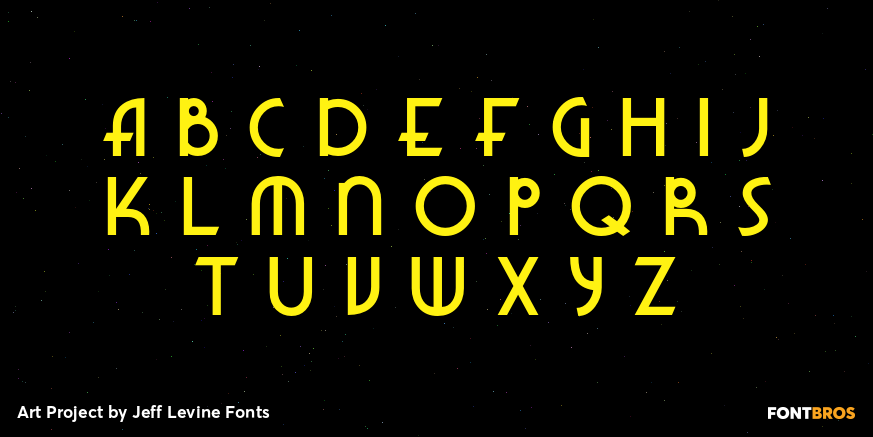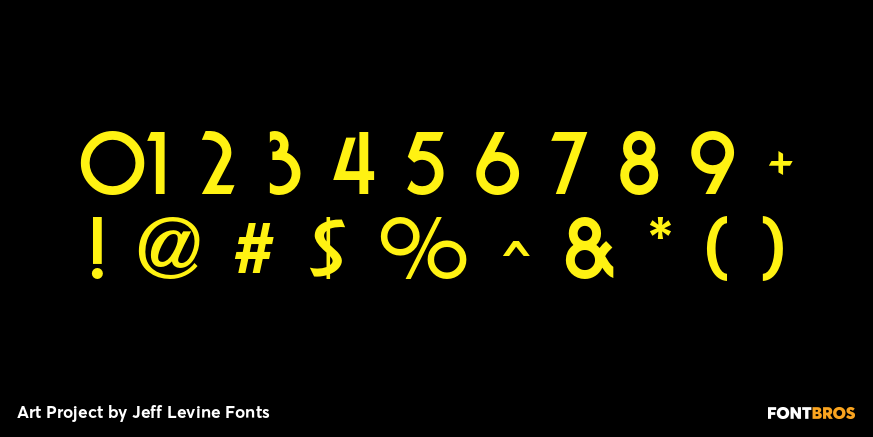
Art Project
A 1930s WPA (Works Projects Administration) poster advertising a play entitled 'Abraham Lincoln, The Great Commoner” had the play's name done in a hand-lettered Art Deco sans.
According to Wikipedia, 'the Works Progress Administration (renamed in 1939 as the Work Projects Administration; WPA) was the largest and most ambitious American New Deal agency, employing millions of unemployed people (mostly unskilled men) to carry out public works projects, including the construction of public buildings and roads. In a much smaller but more famous project, Federal Project Number One, the WPA employed musicians, artists, writers, actors and directors in large arts, drama, media, and literacy projects.”
Art Project by Jeff Levine Fonts